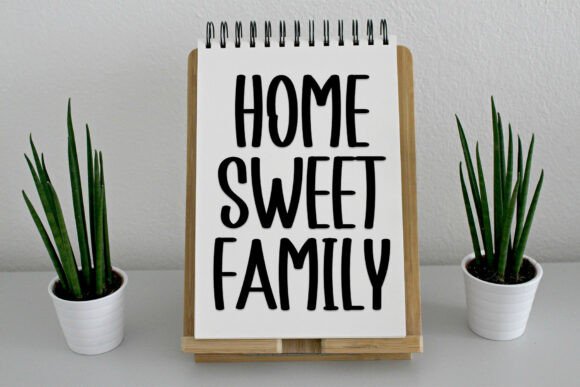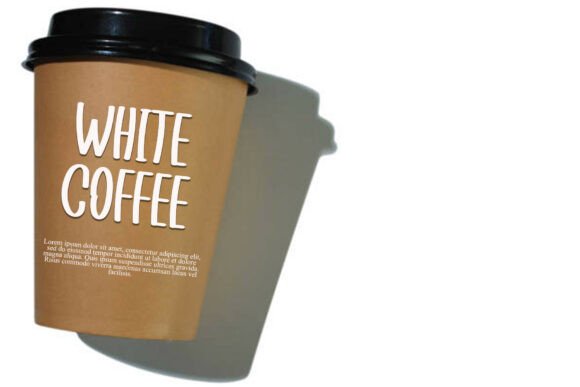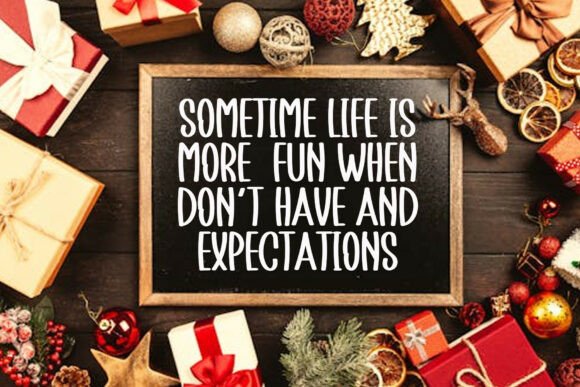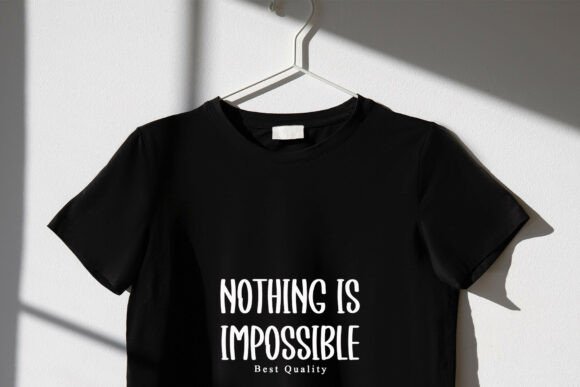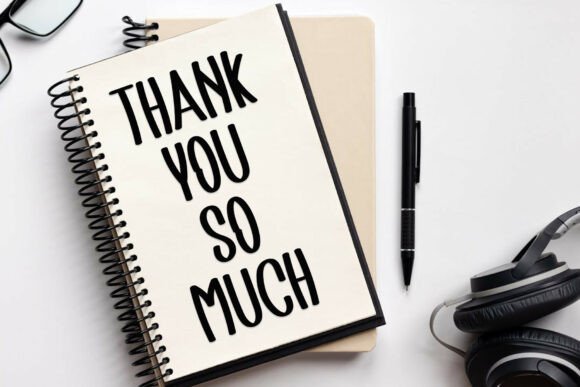
Christmas December Font: A Festive and Happy Typeface for the Holiday Season
The holiday season is upon us, and with it comes the joy of creating festive and fun designs that capture the spirit of Christmas. One of the most important elements of any design is the font, and that’s where the Christmas December font comes in. This beautiful and unique typeface is perfect for adding a touch of charm to your holiday-themed projects, from greeting cards and gift labels to social media posts and website headers.
A Festive and Happy Typeface
Christmas December is a festive and happy typeface that embodies the joy and magic of the holiday season. With its decorative elements and unique flair, this font adds a touch of nostalgia and cheer to your words. The font’s design is inspired by the classic and elegant typography of the past, but with a modern twist that makes it perfect for contemporary designs.
Whether you’re a designer, crafter, or DIY enthusiast, the Christmas December font is perfect for a wide range of holiday-themed projects. Use it to create:
- Festive greeting cards for friends and family
- Gift labels and tags that add a personal touch
- Holiday-themed social media posts and graphics
- Website headers and banners that capture the spirit of the season
- Decorative posters and prints for your home or office
One of the best things about the Christmas December font is that it’s PUA (Private Use Area) coded, which means you can access all the amazing glyphs and ligatures easily. This makes it simple to add decorative elements and special characters to your designs, giving them an extra touch of flair and personality.
Key Features of the Christmas December Font
- Festive and happy typeface that captures the spirit of the holiday season
- Decorative elements and unique flair add a touch of charm to your designs
- Perfect for greeting cards, gift labels, and holiday-themed projects
- PUA coded for easy access to glyphs and ligatures
Tips for Using the Christmas December Font
Here are a few tips for getting the most out of the Christmas December font:
- Use it in combination with other festive fonts and graphics to create a unique and eye-catching design
- Don’t be afraid to get creative and try out new and unusual design ideas
- Use the font’s decorative elements and glyphs to add a personal touch to your designs